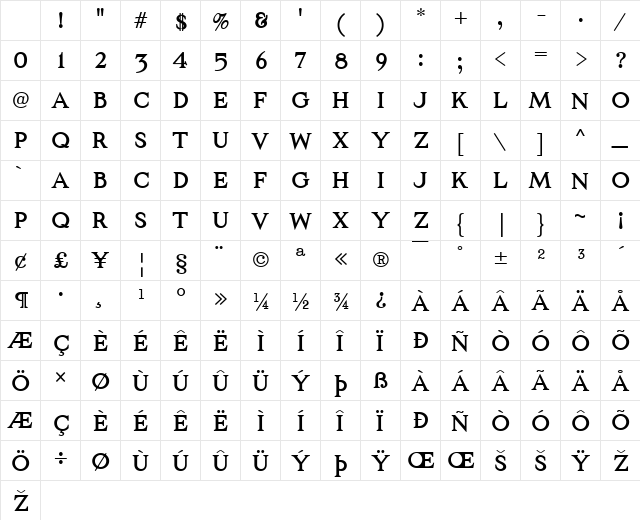
Complete Architect[Stylus] Regular glyph index. Displaying only characters natively supported by Architect[Stylus] Regular font.
Architect[Stylus] is a composed and adaptable typeface that performs quietly and consistently across a wide range of design contexts.